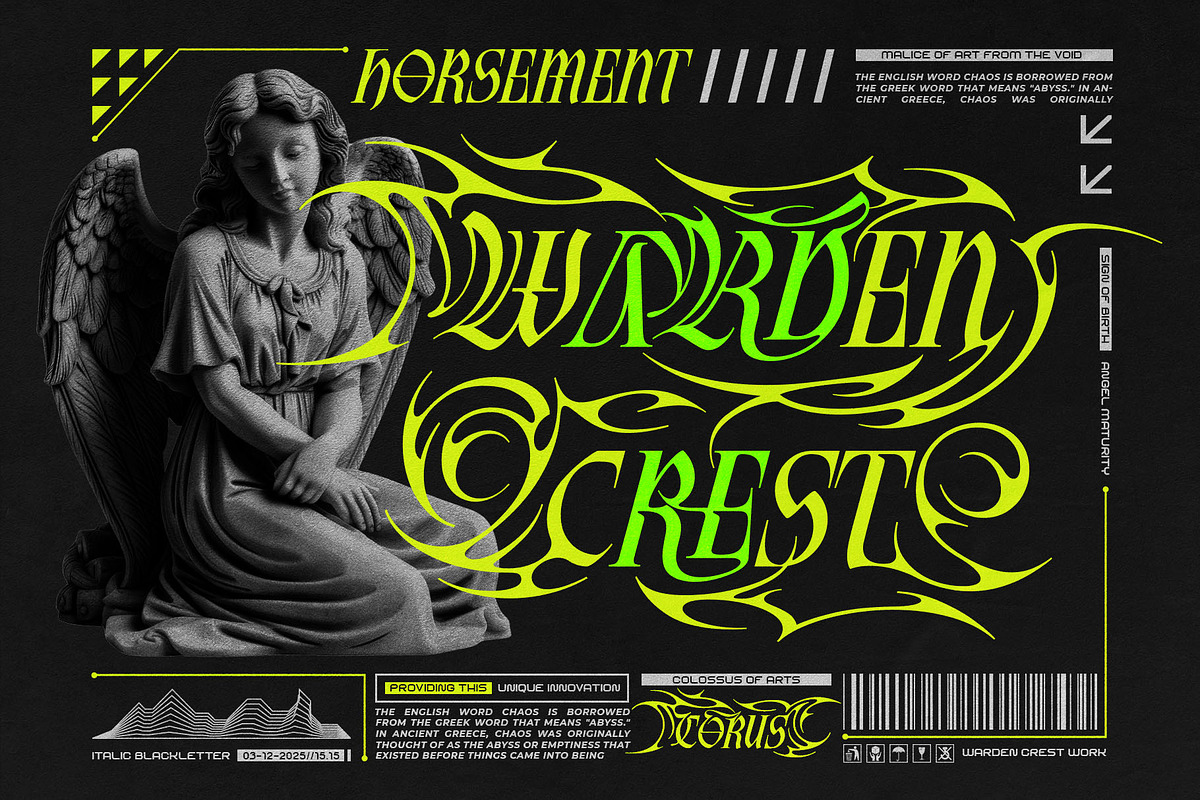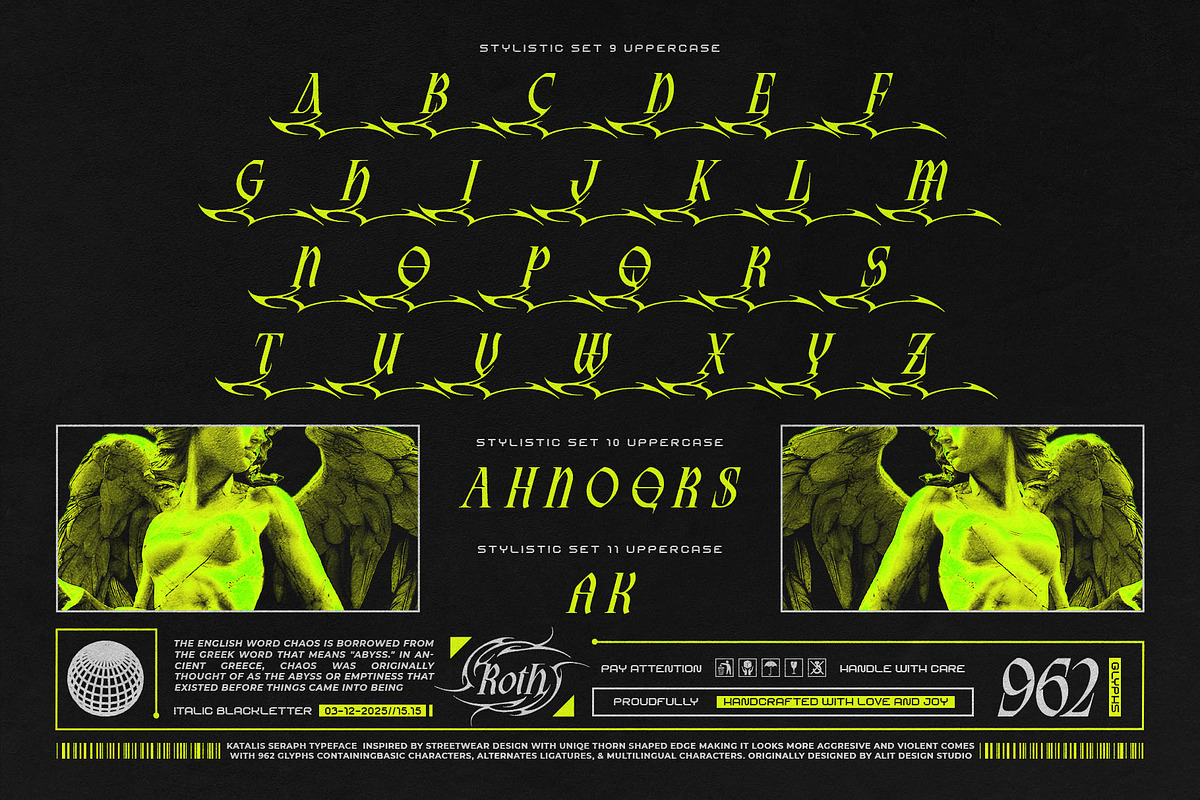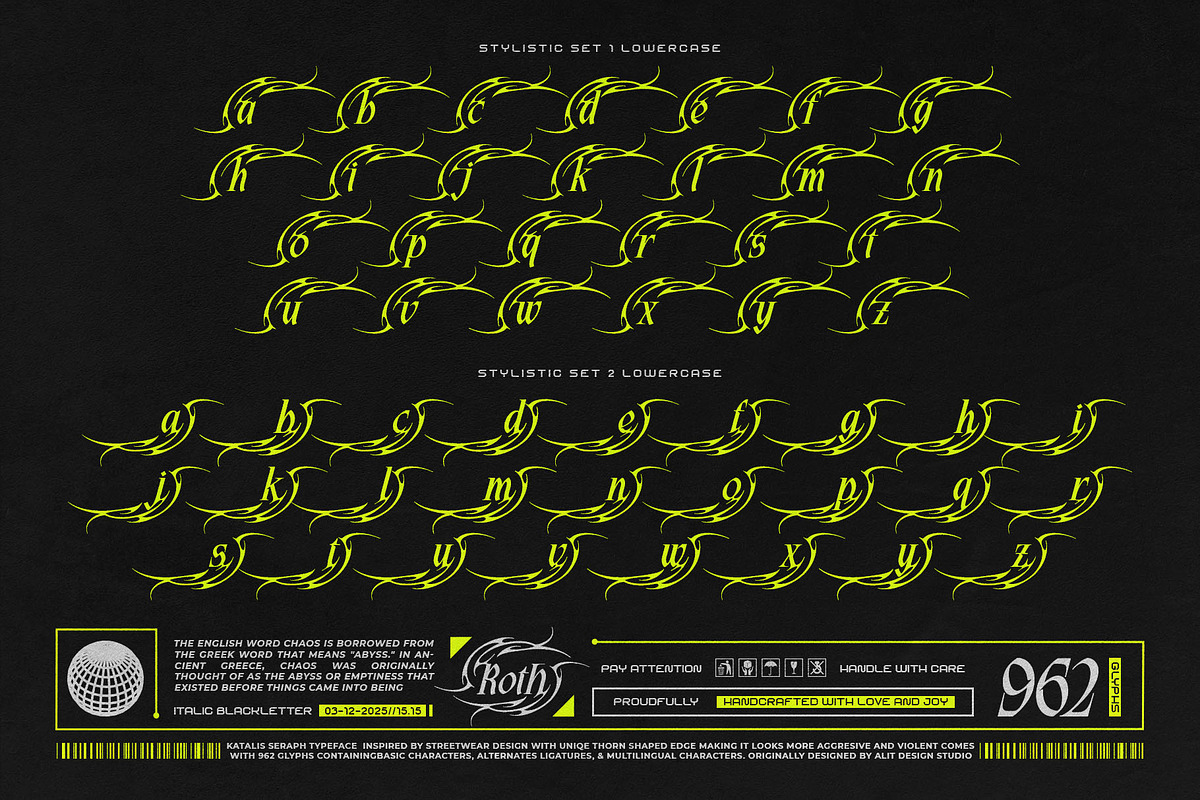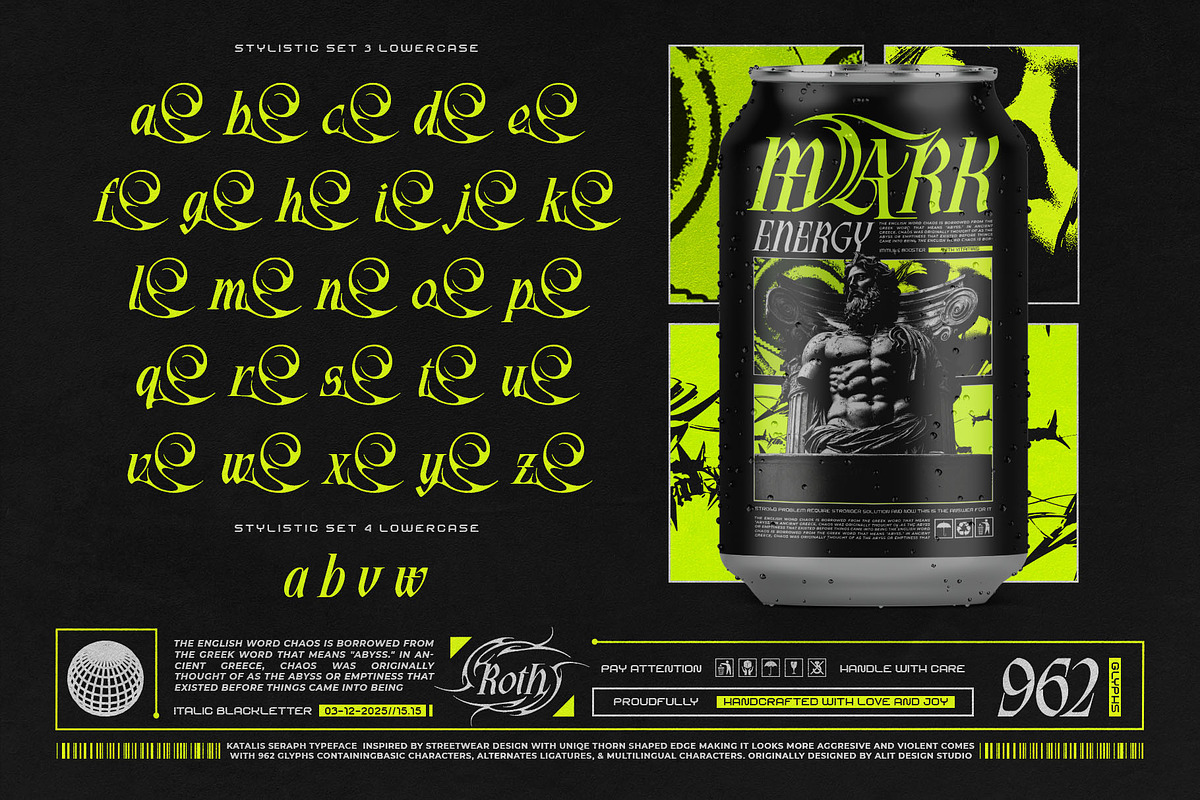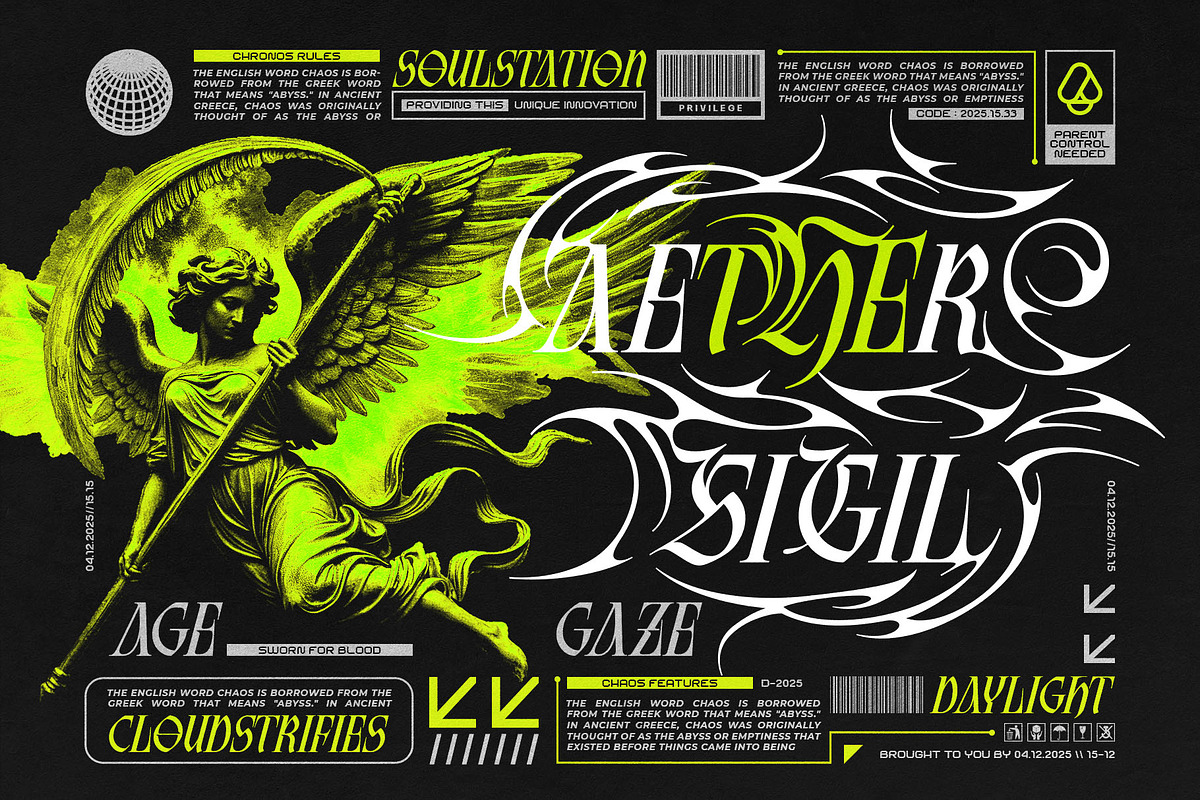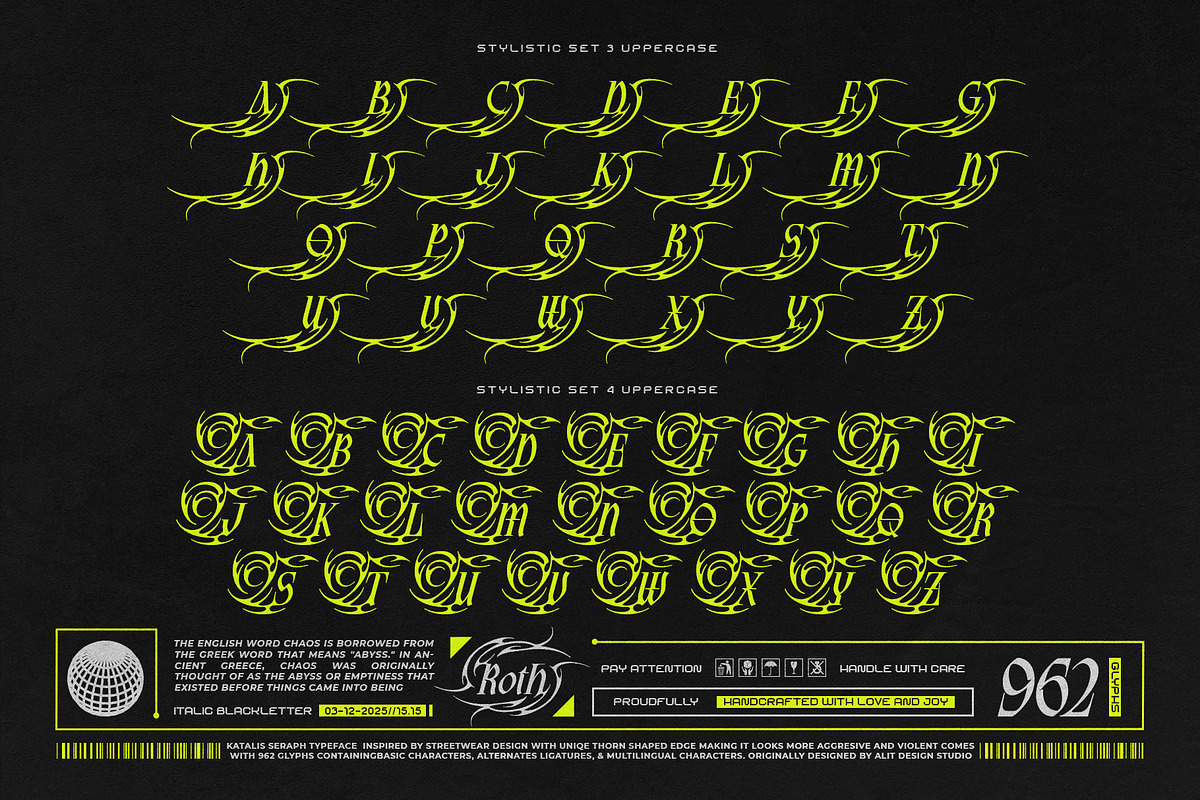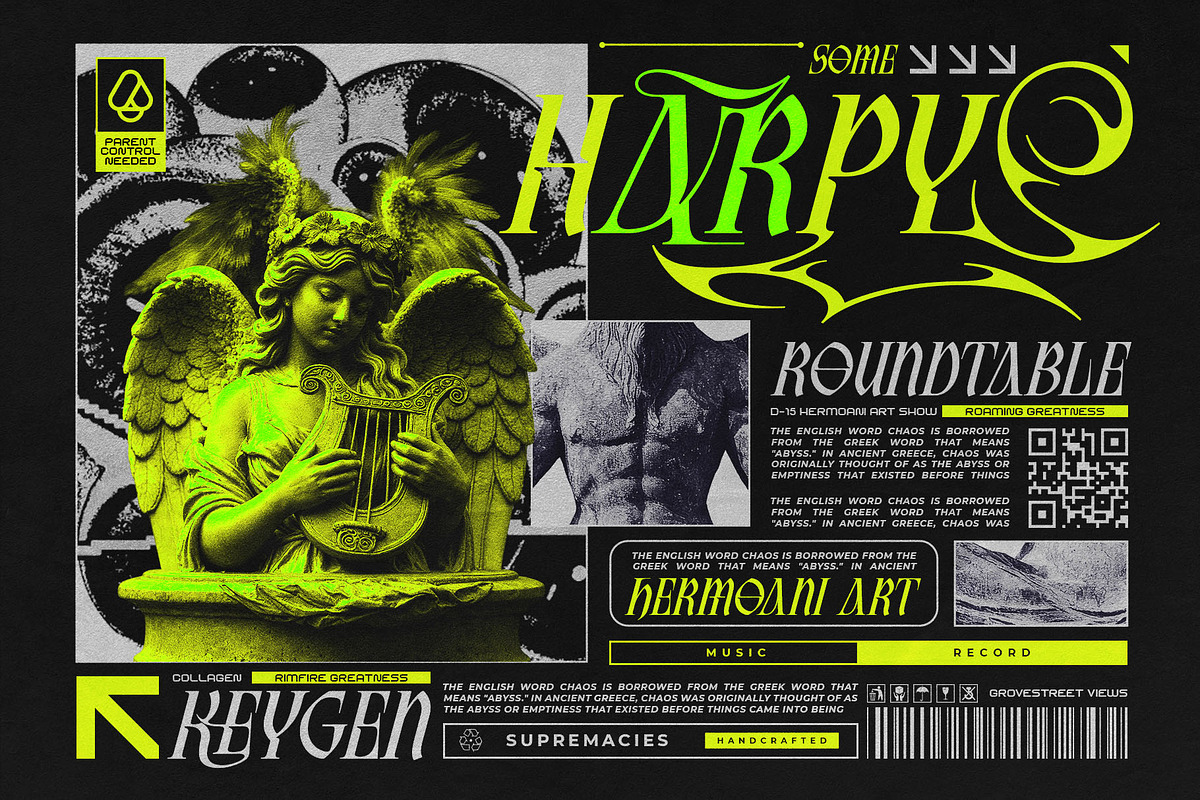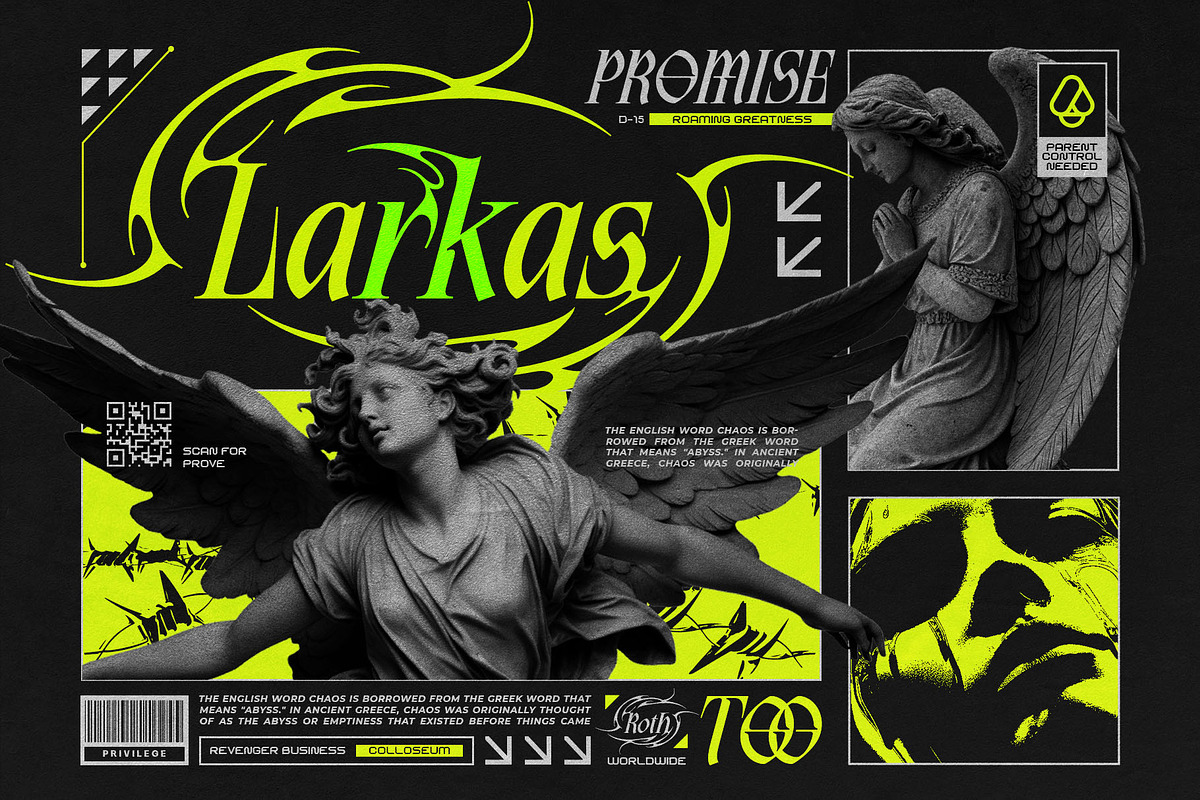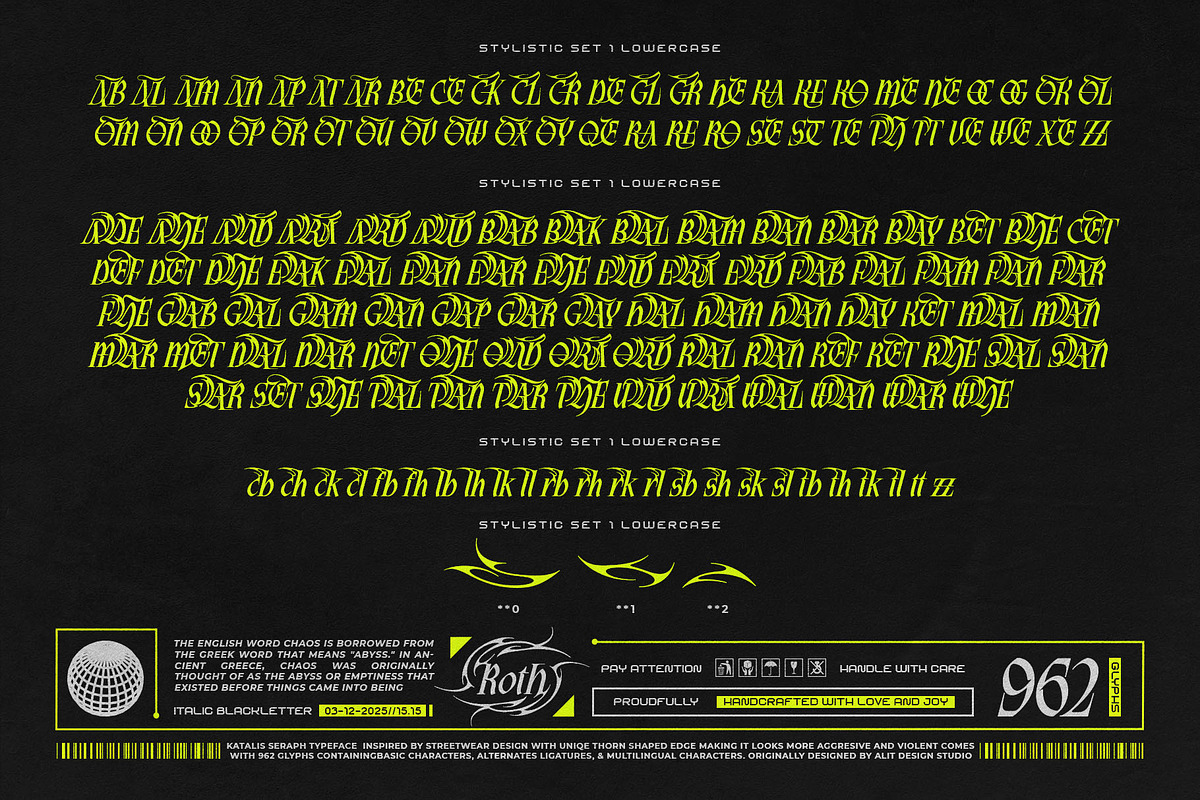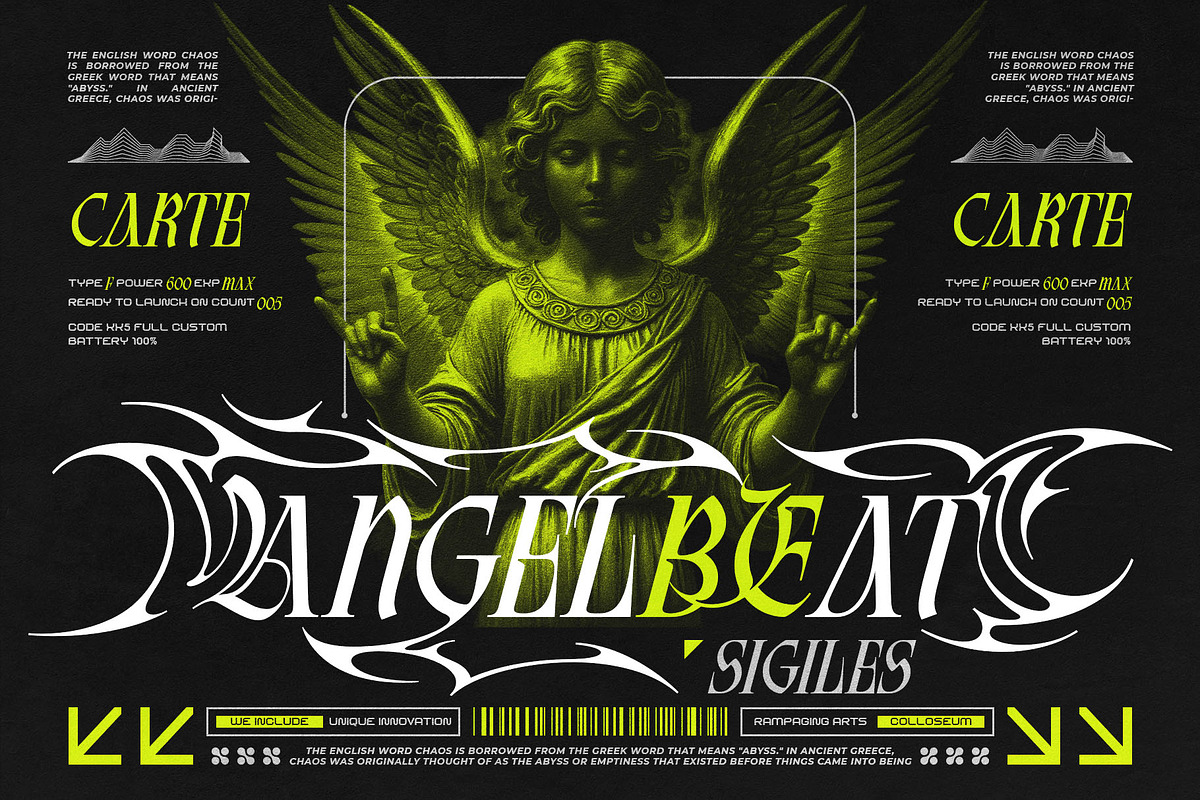
Katalis Seraph Typeface
Katalis Seraph Typeface – Aggressive Italic Blackletter
Embrace the Chaos. Unleash the Void.
Introducing Katalis Seraph, a typeface born from the collision of ancient gothic aesthetics and modern streetwear rebellion. This isn't just a font; it is a visual weapon. Designed with an aggressive italic stance, Katalis Seraph features unique thorn-shaped edges and razor-sharp serifs that scream speed and power.
Inspired by the concept of "Chaos" from ancient Greek mythology and the raw energy of contemporary Y2K/Acid graphics, this typeface bridges the gap between the classical and the radical. Whether you are designing for a brutalist clothing brand, a heavy metal album cover, or an avant-garde art poster, Katalis Seraph provides the edge you need to stand out.
With a massive library of 962 glyphs, the possibilities are endless. The font comes equipped with extensive alternate characters, from subtle sharp serifs to wild, tribal-tattoo-inspired swashes that wrap around your text like thorny vines.
- Aggressive Aesthetic: A unique Italic Blackletter hybrid with thorn-shaped detailing.
- Extensive Glyph Library: Includes 962 glyphs, offering unparalleled customization.
- 4 Distinct Stylistic Sets:
- SS01 & SS03: Sharp, readable, yet edgy characters.
- SS02 & SS04: Highly ornamental, decorative, and aggressive swash variations.
- Streetwear Ready: perfectly engineered for t-shirt designs, hoodies, logos, and merchandise.
- Multilingual Support: Ready for global domination.
Perfect For: Streetwear brands, poster design, album art, game UI, logo design, and brutalist web design.